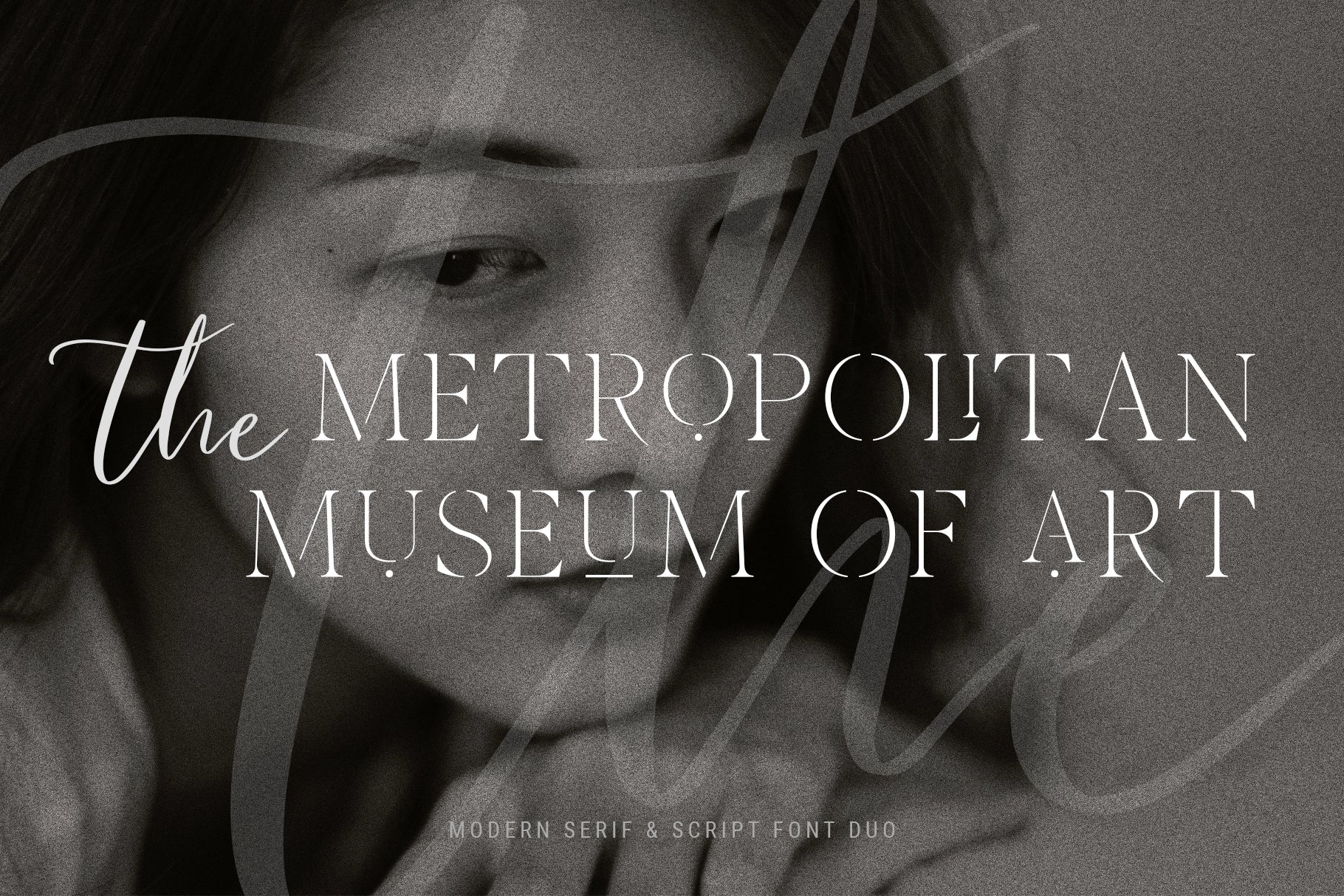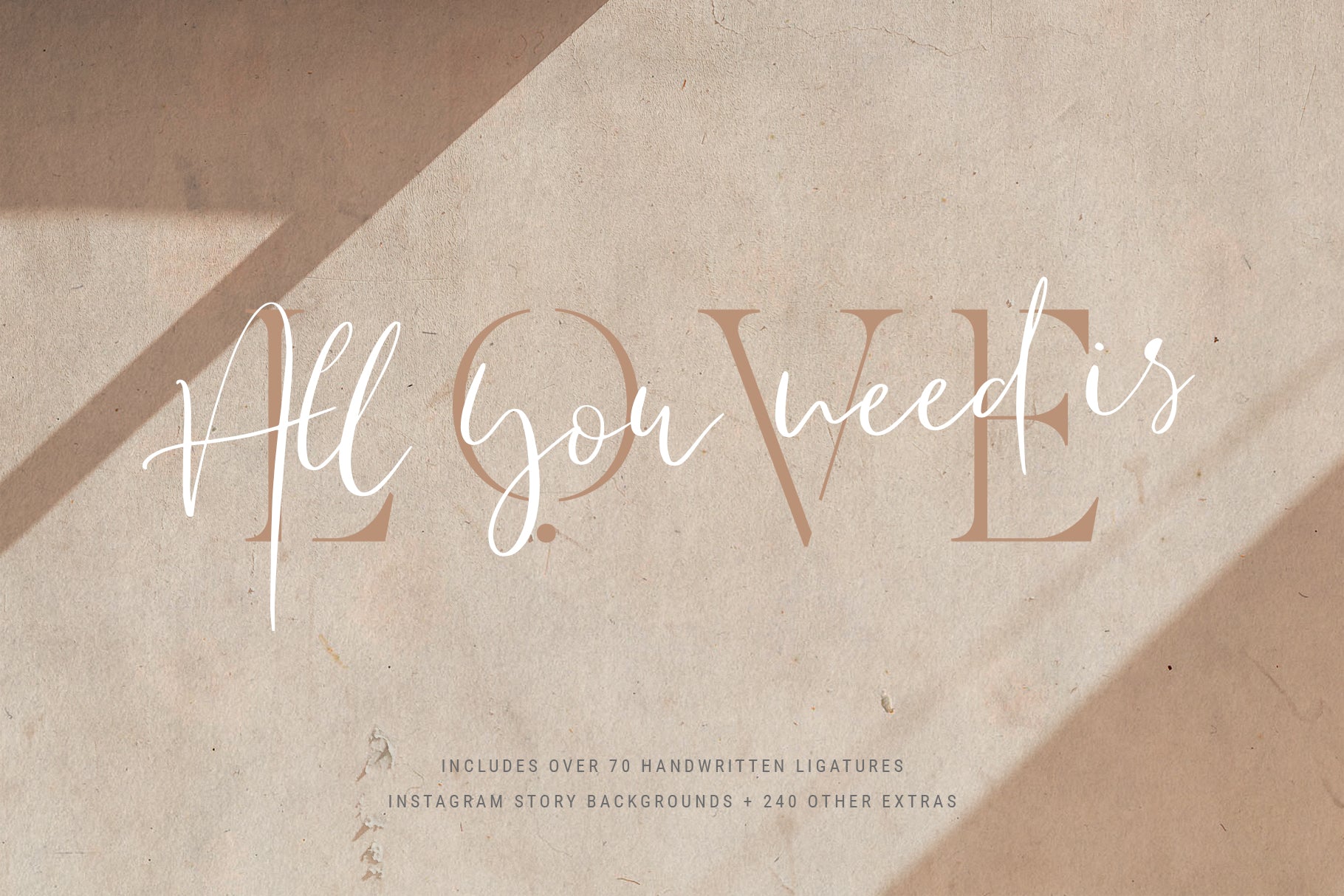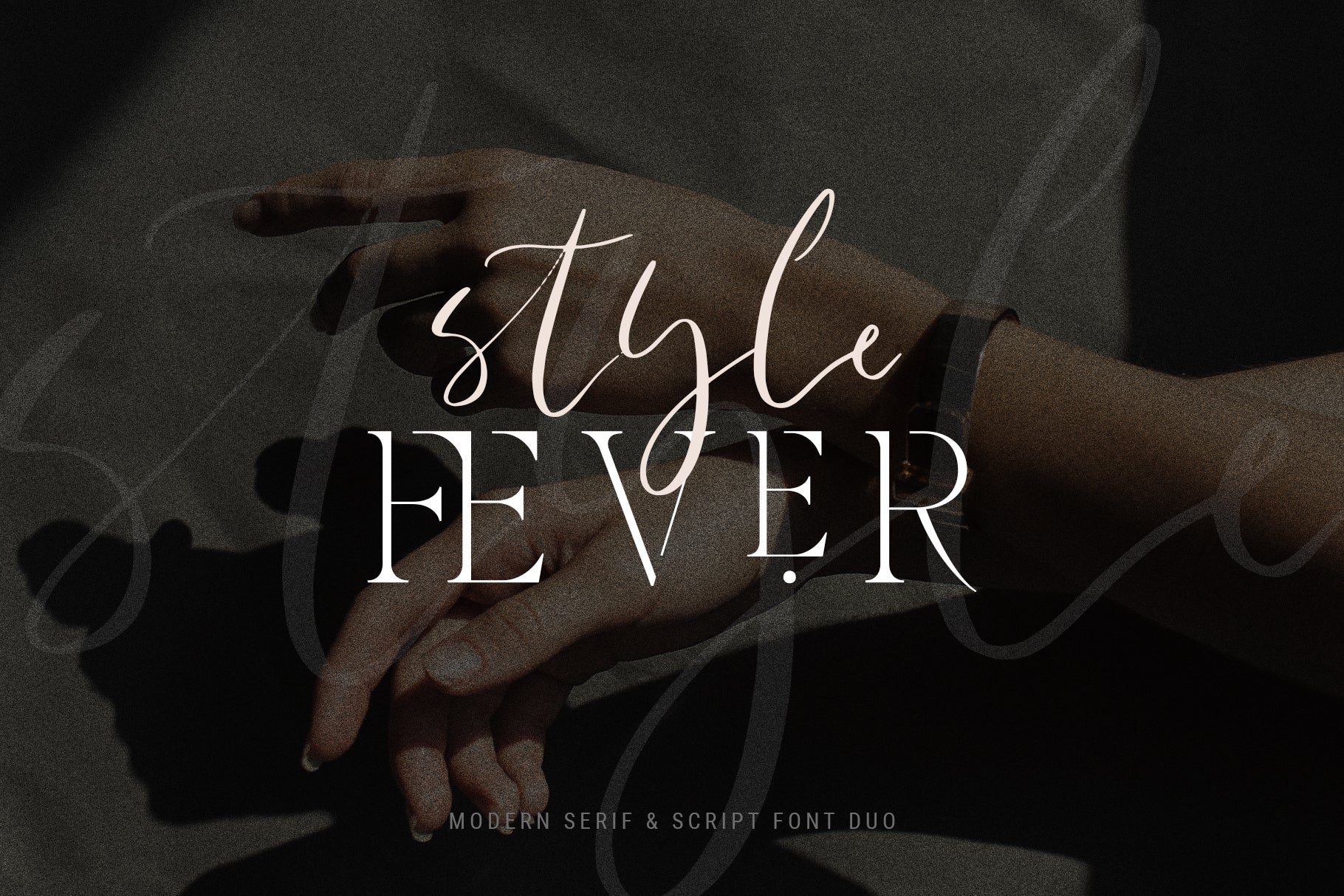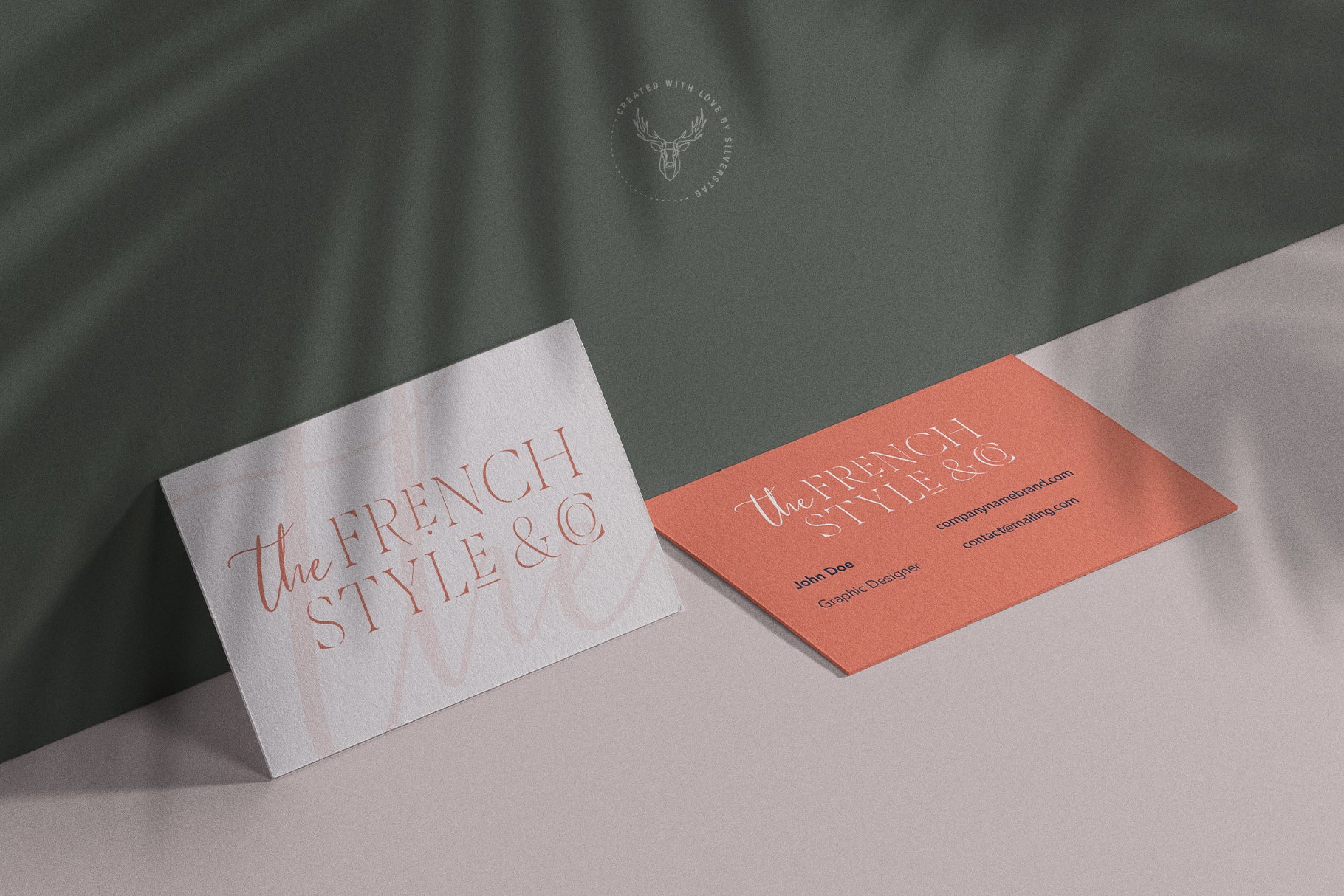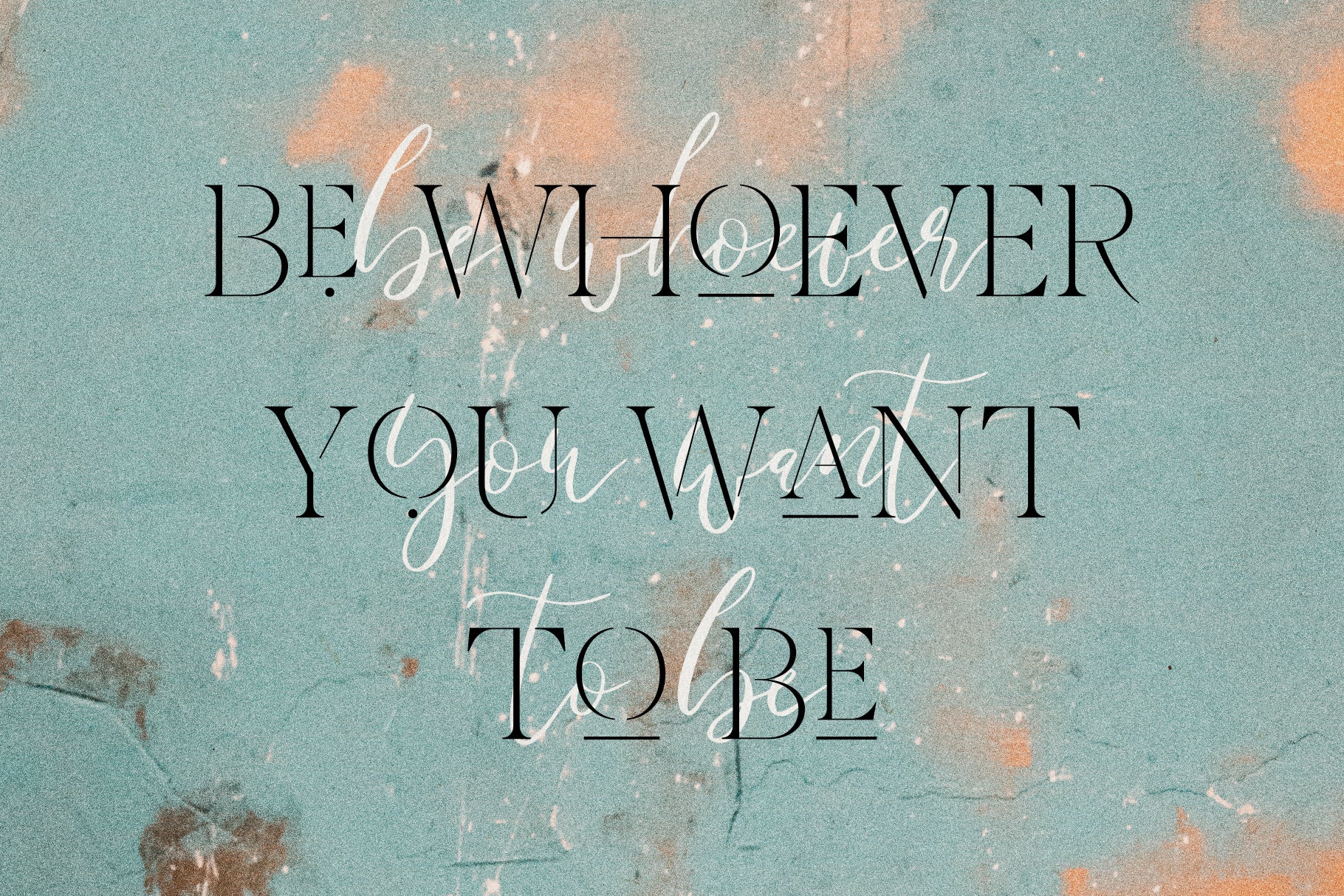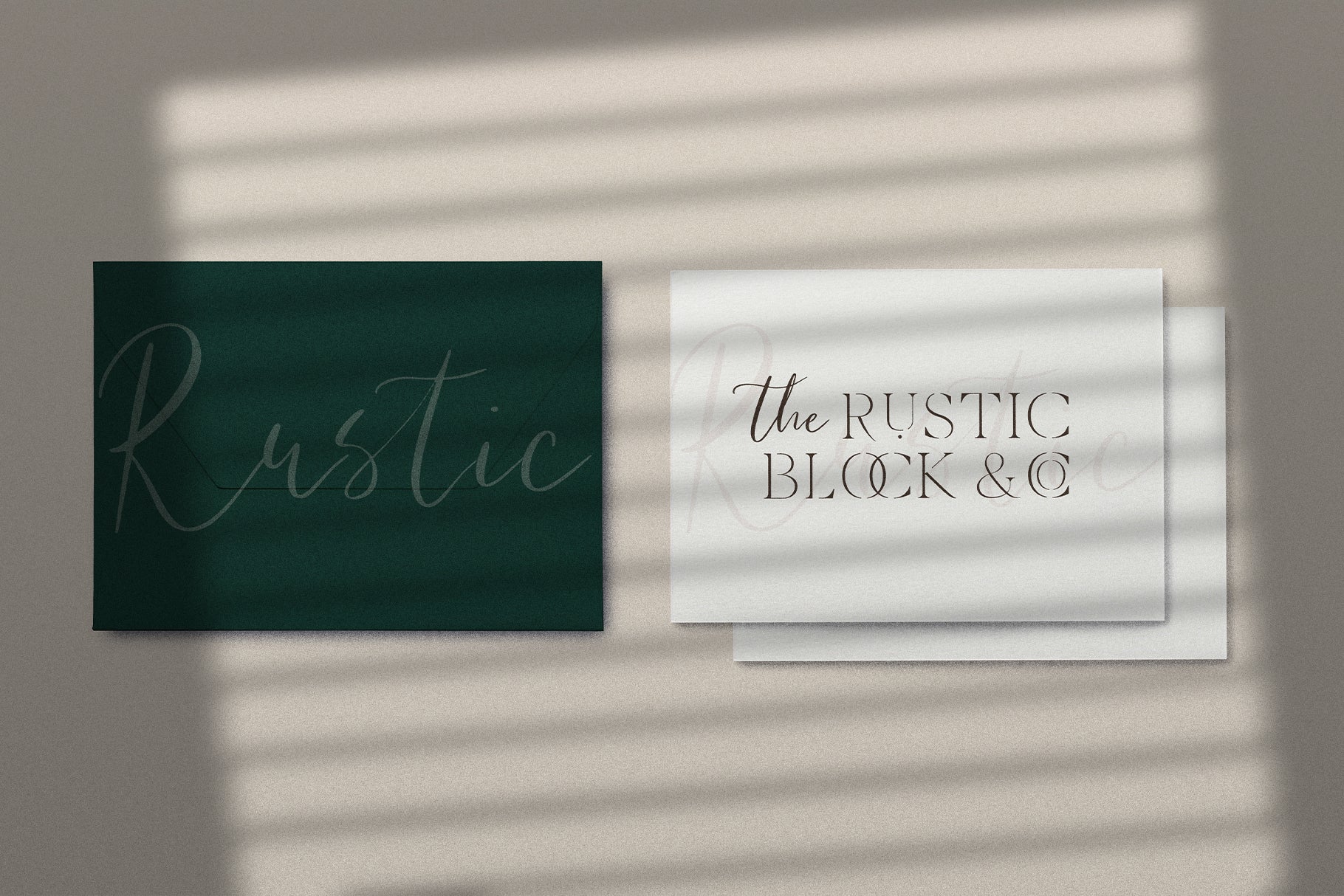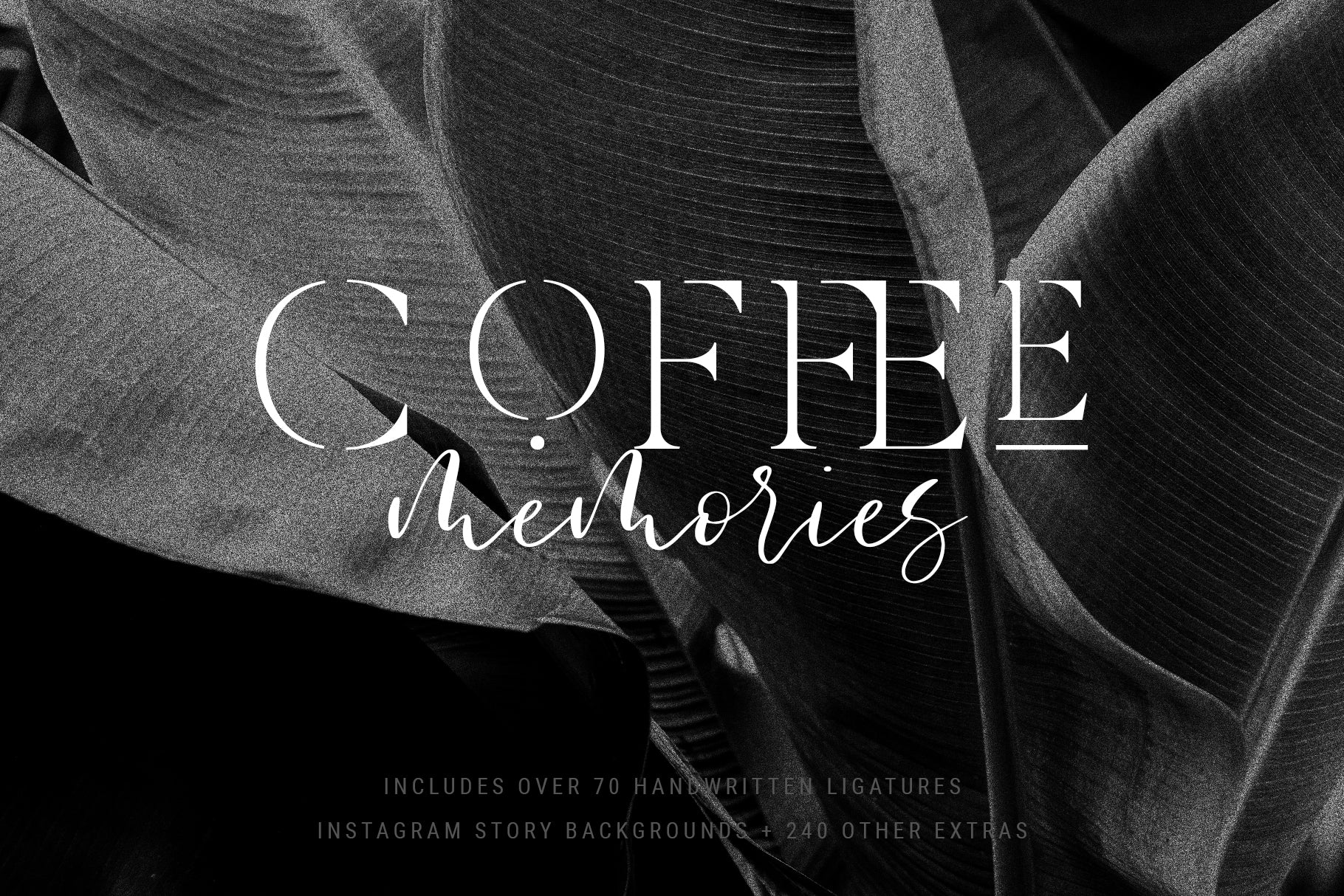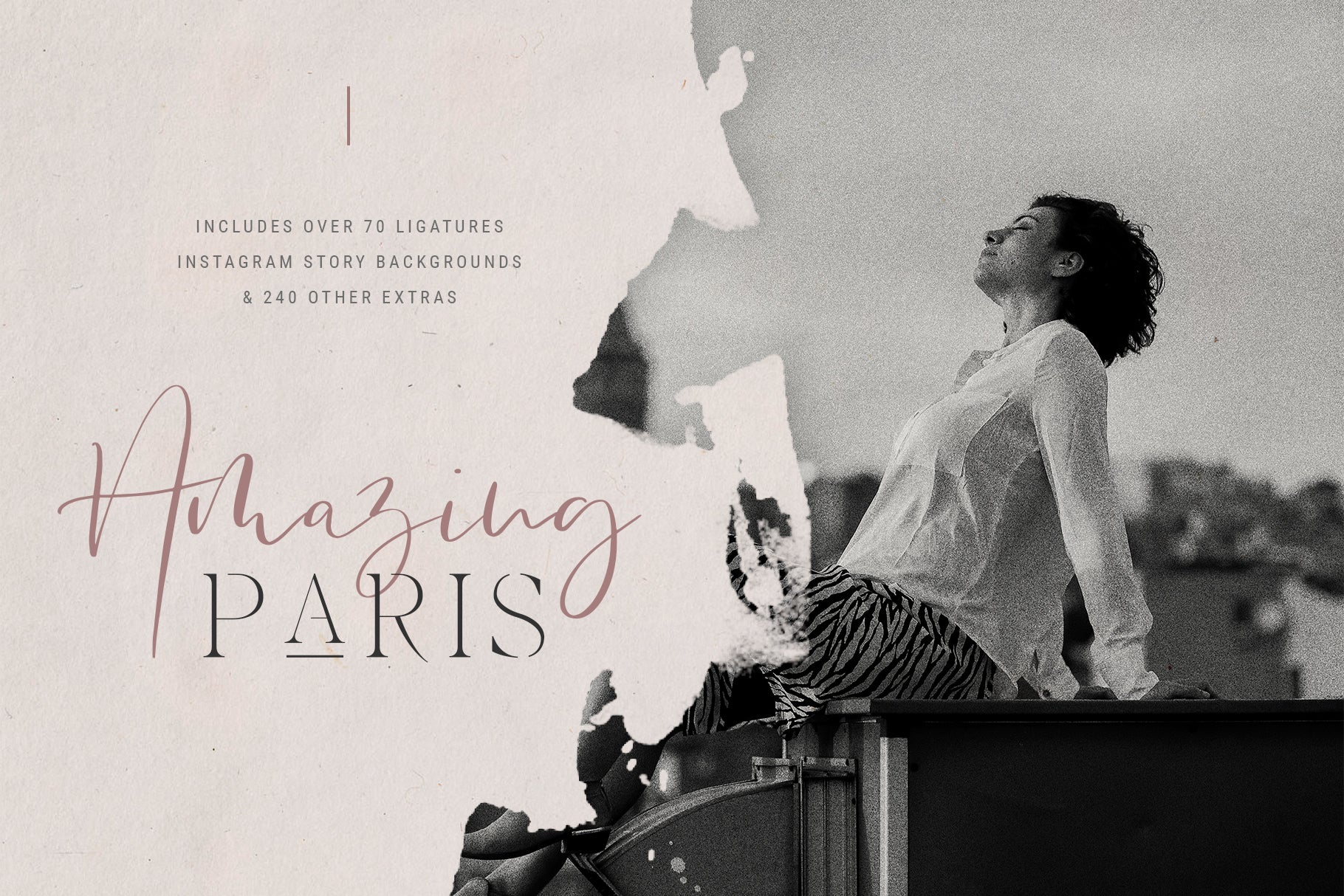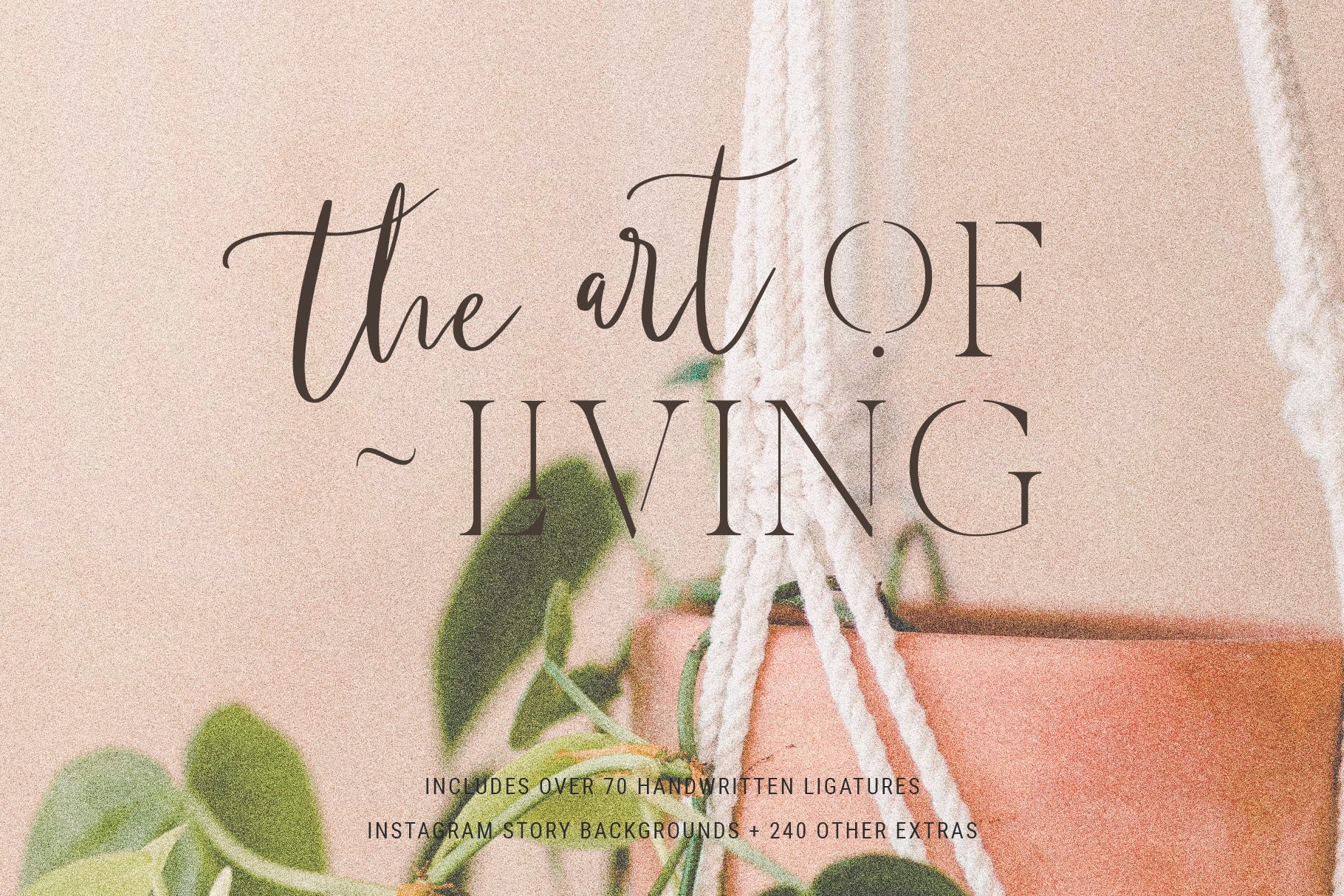
Verona Amore is a romantic and stylish font duo crafted to elevate your most beautiful projects. This carefully designed typeface pairing includes a chic serif and an elegant script—perfect for everything from wedding invitations and logo design to social media graphics, branding, and editorial layouts.
But the magic doesn’t stop with the fonts. The Verona Amore Font Duo comes with over 240 hand-drawn extras including botanical elements, shapes, lines, handwritten words, and design accents. You’ll also get 29 Instagram Story backgrounds in both PSD and JPG formats, and 5 printable poster compositions to help bring your vision to life.
Whether you’re working on a mood board, stationery suite, or client presentation, this creative bundle delivers elegance, personality, and endless customization.